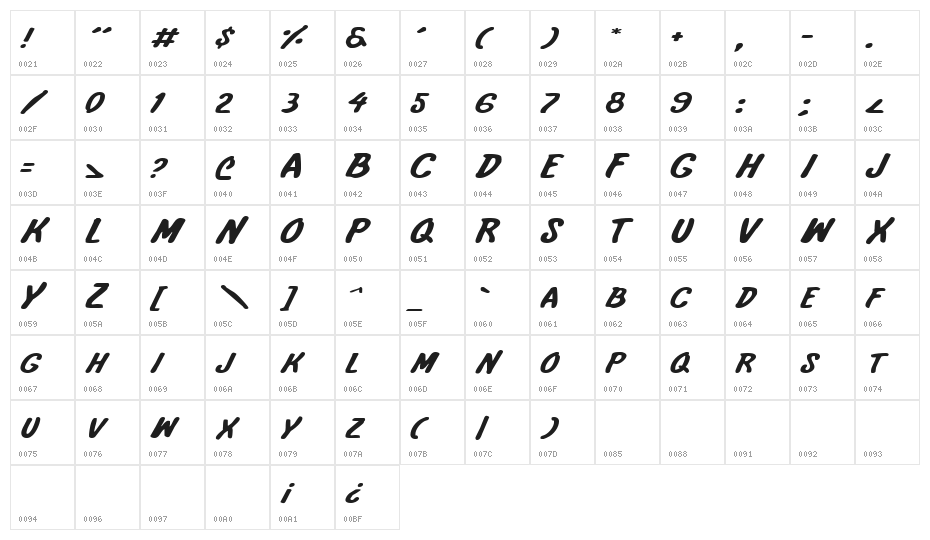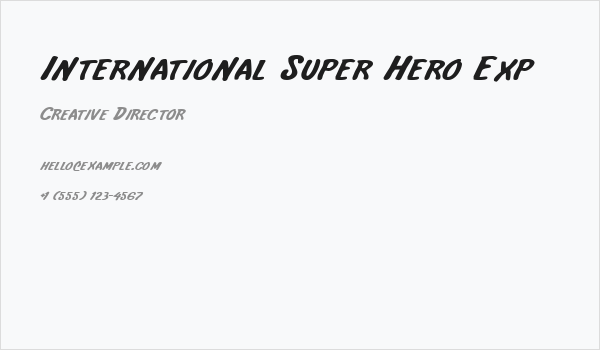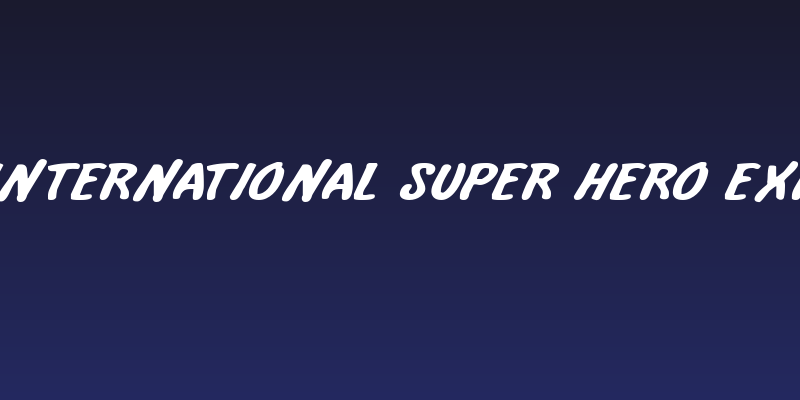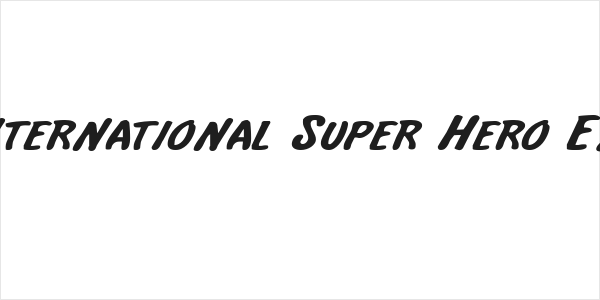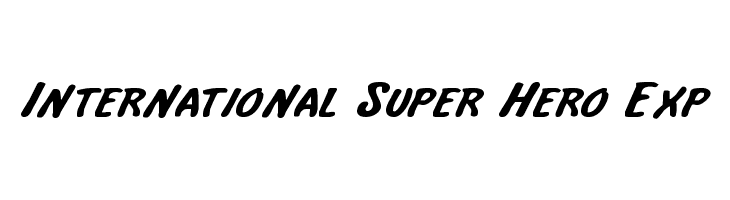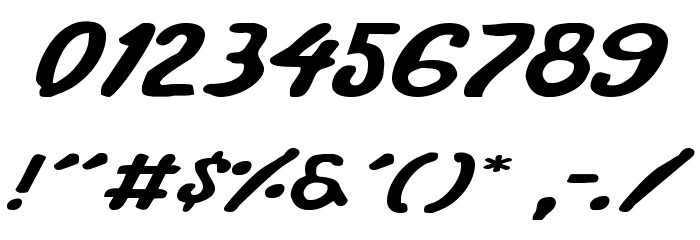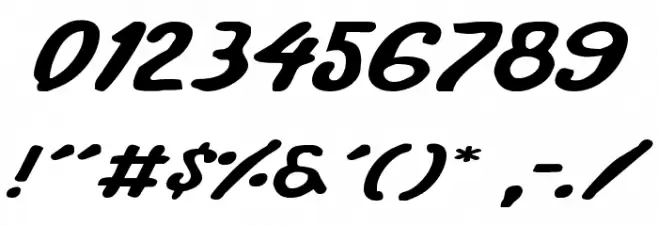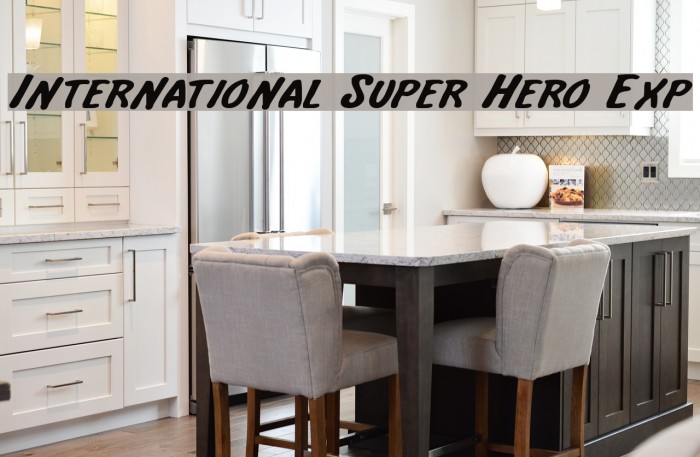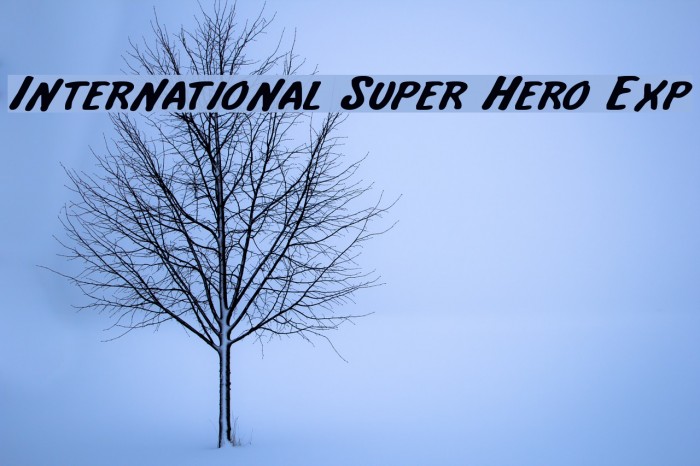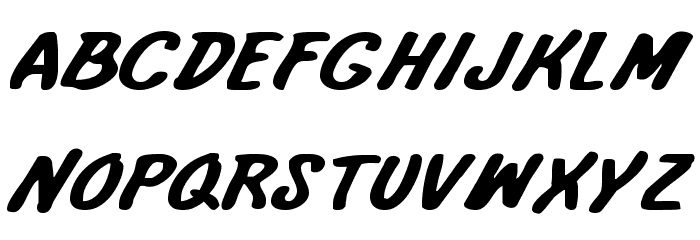
International Super Hero Exp Font
This font features bold, rounded characters with a playful and energetic style. The letters have a slight slant, giving them a dynamic and forward-moving appearance. The strokes are thick and consistent, providing a strong visual impact. The overall design is reminiscent of comic book lettering, making it ideal for projects that require a fun and lively aesthetic. The numbers and special characters maintain the same bold and rounded characteristics, ensuring consistency across all elements.
| Overall Style | Playful, Energetic |
| Proposed Projects | Ideal for comic books, children's books, posters, and playful branding. |